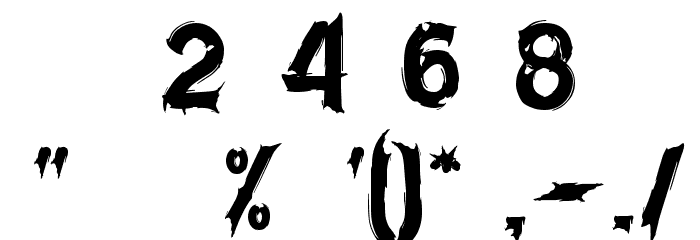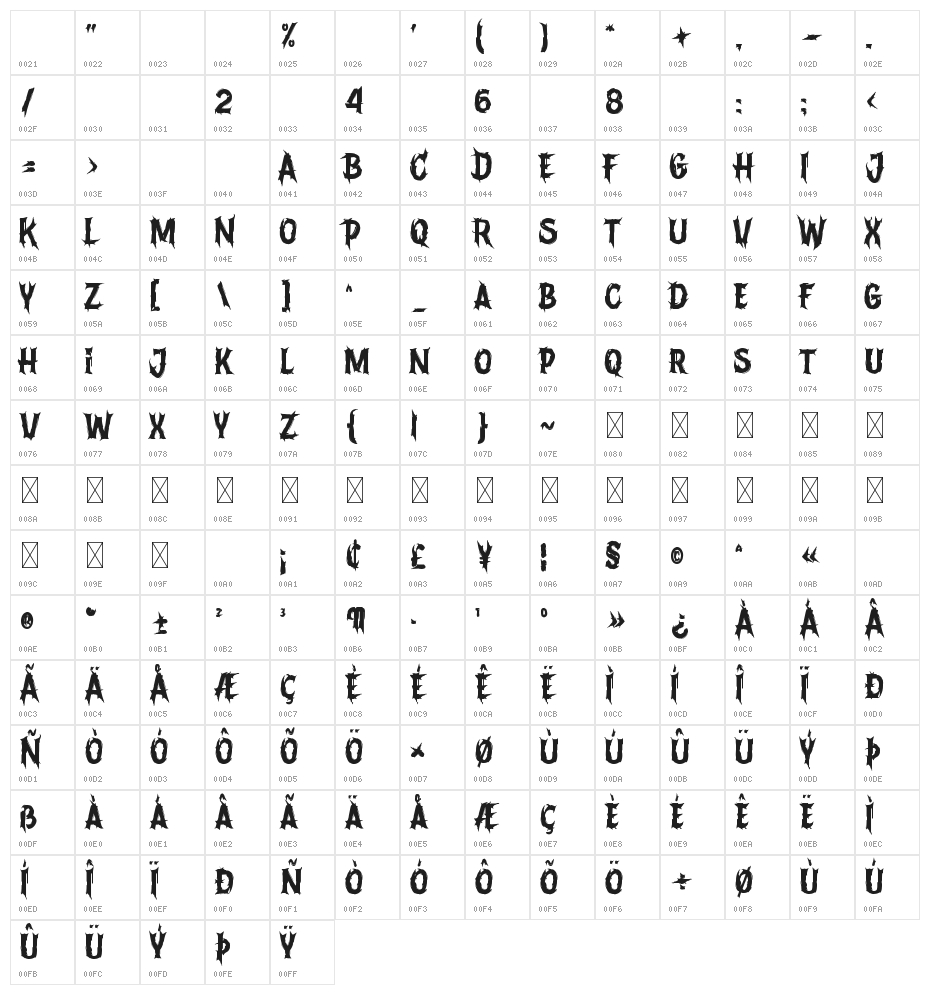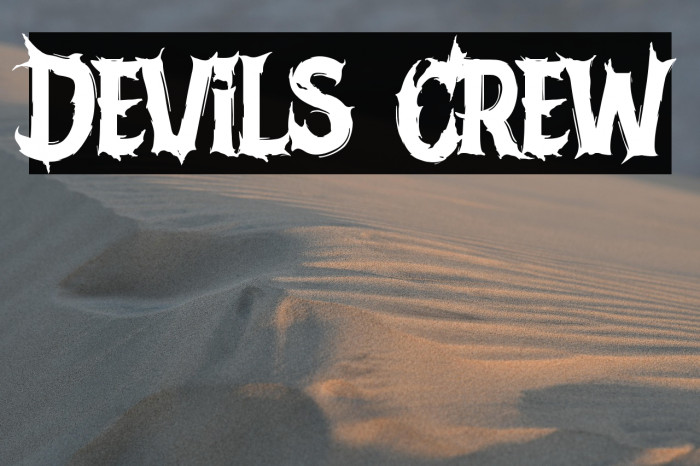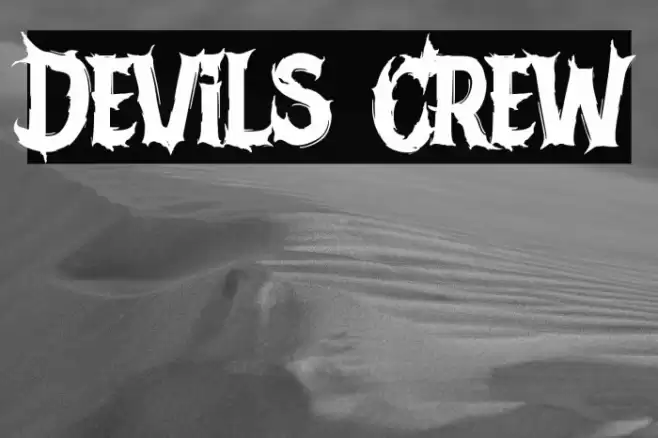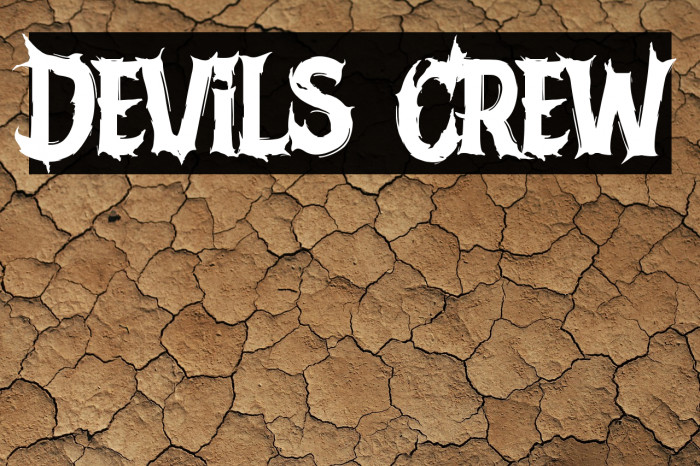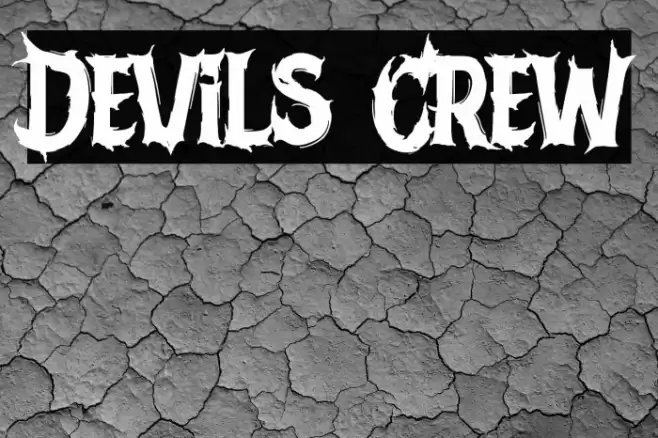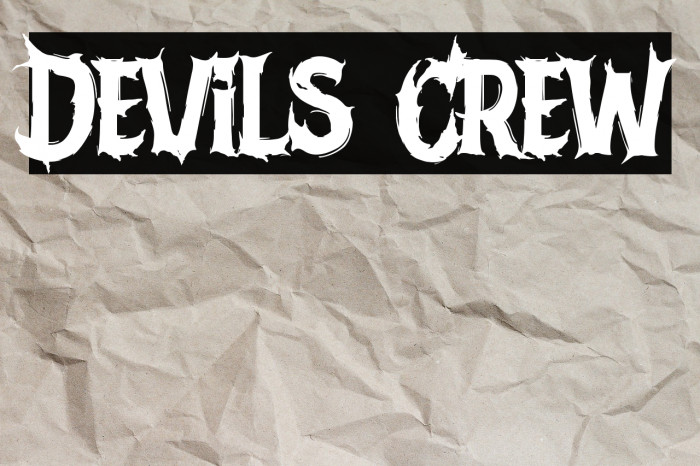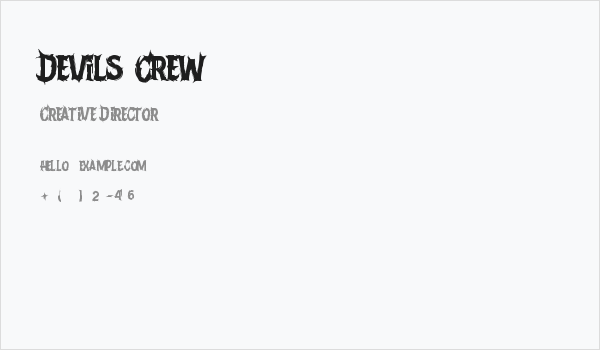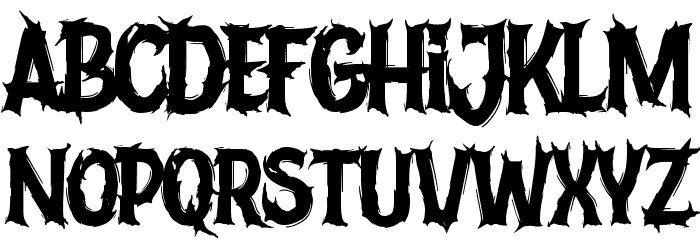
Devils Crew Font
Devils Crew Description
This font features a bold and aggressive design with sharp, jagged edges that give it a menacing and edgy appearance. The characters are heavily stylized, resembling thorns or spikes, which adds a dramatic flair. The uppercase and lowercase letters maintain a consistent theme, with each character exhibiting a unique, intricate pattern that enhances its visual impact. The numbers and special characters follow the same aesthetic, ensuring a cohesive look across all glyphs. This font is ideal for projects that require a strong, attention-grabbing typeface with a rebellious or dark theme.
| Proposed Projects | Perfect for horror-themed posters, rock band logos, edgy apparel designs, and video game titles. |